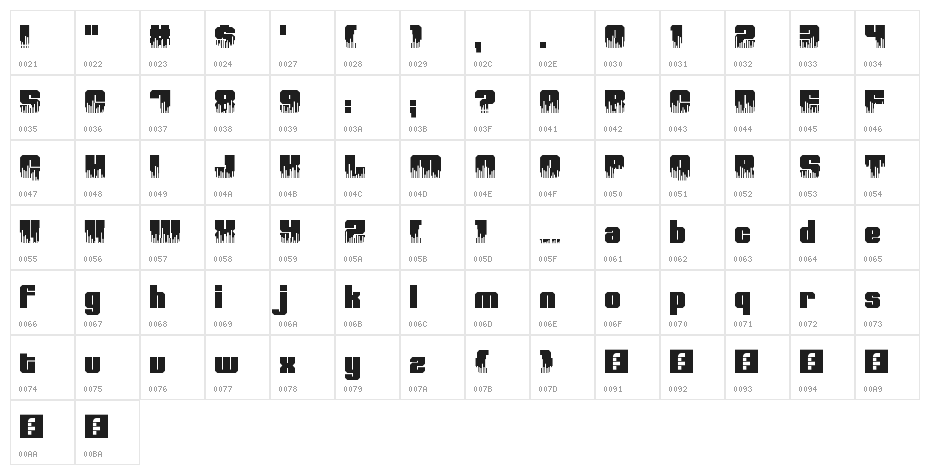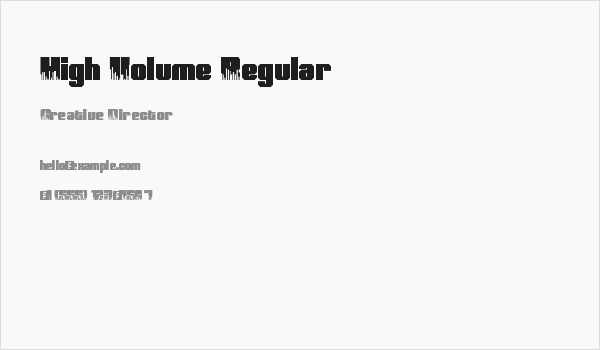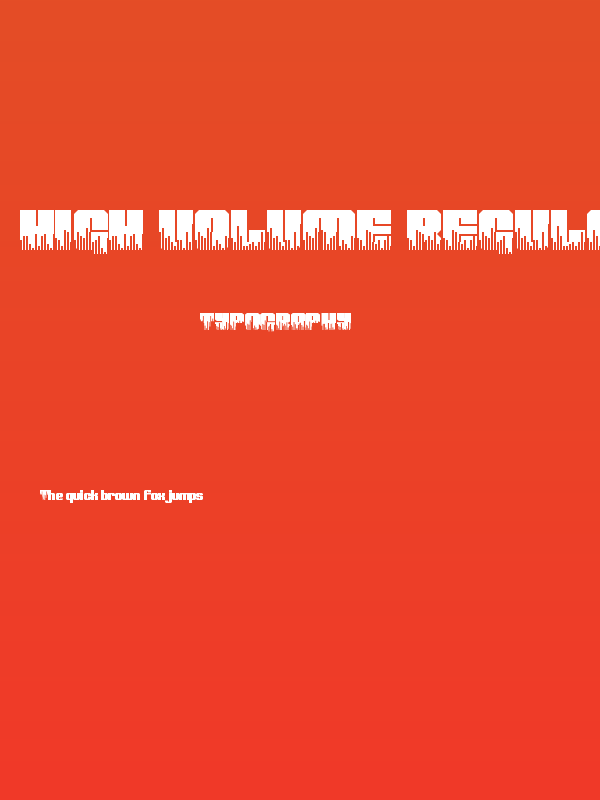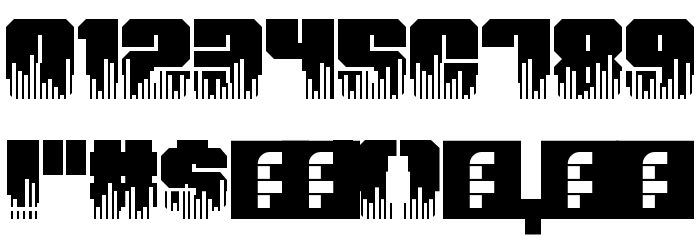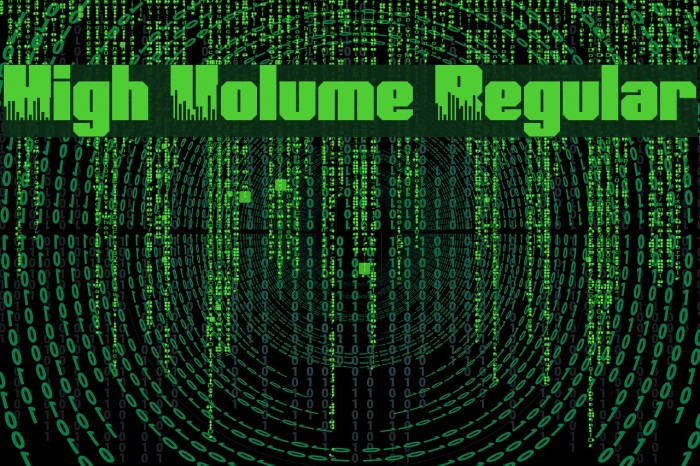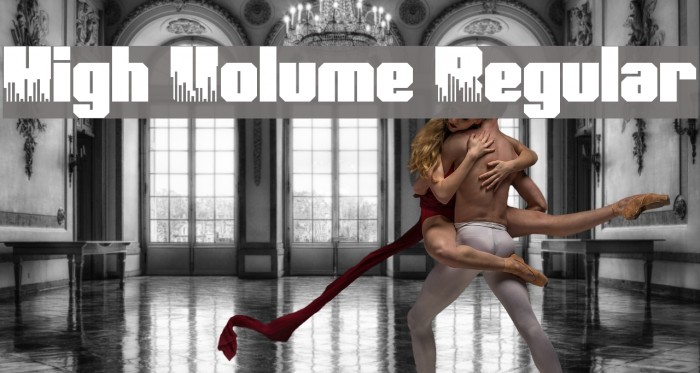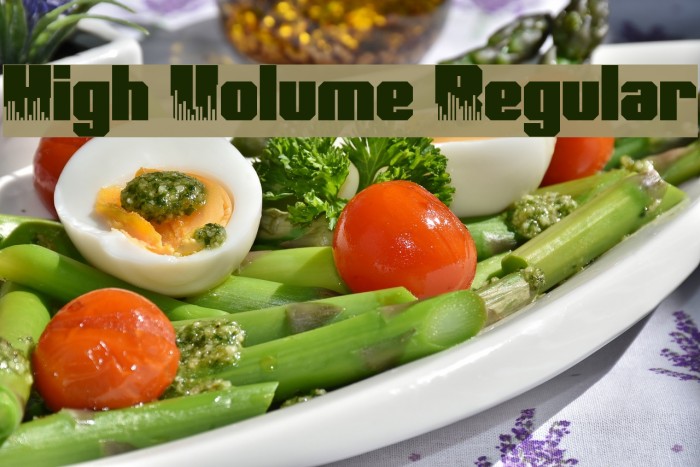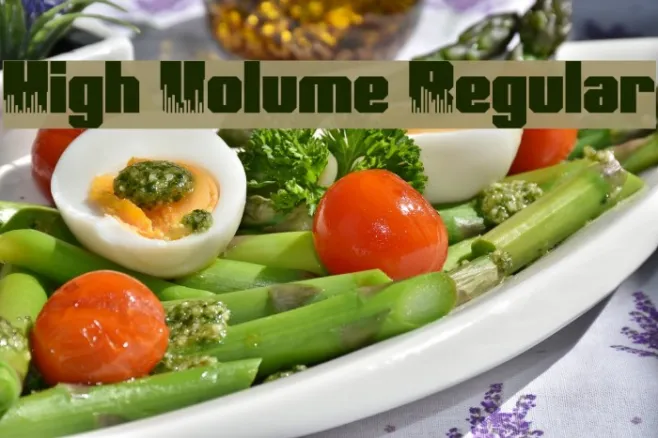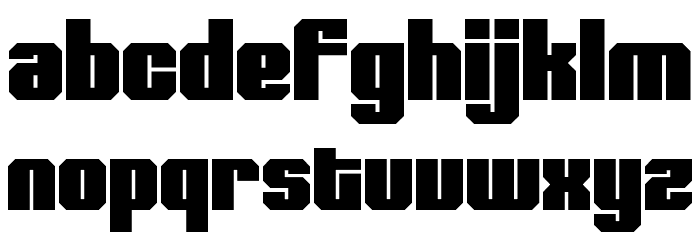
High Volume Regular Font
High Volume Regular Description
This font features a bold and striking design with a unique, jagged lower edge that resembles sound waves or digital interference. The uppercase letters are particularly distinctive, with a strong, blocky appearance that commands attention. The lowercase letters maintain the boldness but with slightly softer edges, providing a balance between the uppercase and lowercase styles. Numbers and special characters follow the same design principle, ensuring consistency across all glyphs. The overall aesthetic is modern and edgy, making it suitable for projects that require a bold statement.
| Overall Style | Modern, Edgy |
| Proposed Projects | Ideal for music album covers, event posters, digital art projects, and branding for tech or entertainment industries. |